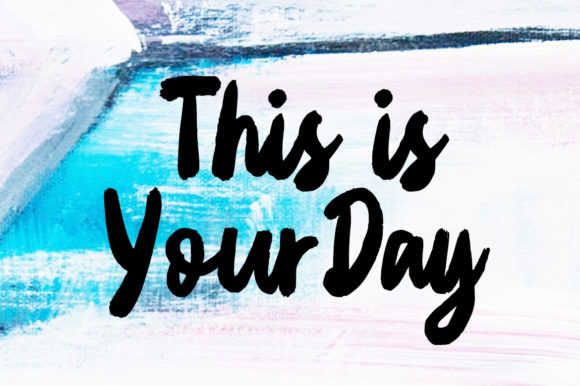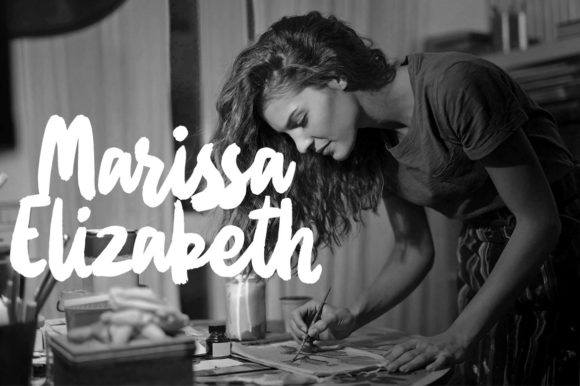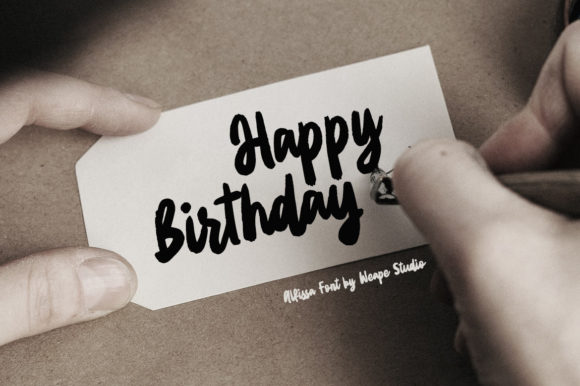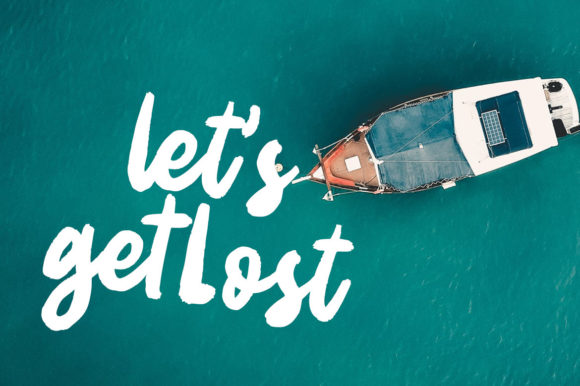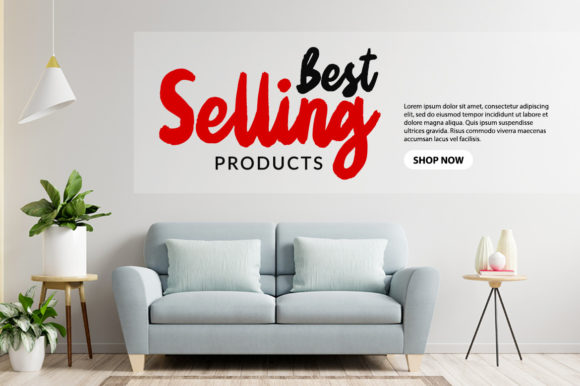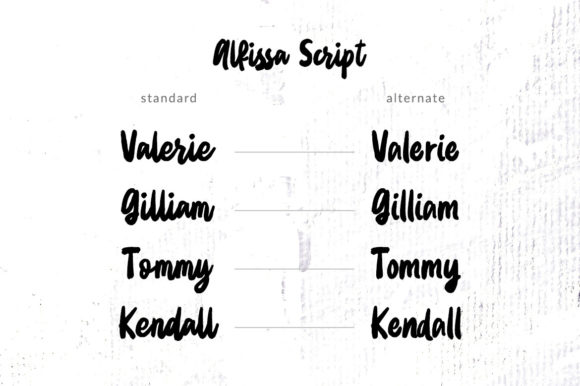
Introduction to Alfissa Font
Have you ever stared at a blank canvas, struggling to bring your creative vision to life? That’s where the right font can be a total game-changer. For designers and crafty enthusiasts alike, finding the perfect font can be a tedious task – until now.
Enter Alfissa Font, a bold and casual handwritten font that’s sure to breathe new life into your creative project. With its clean and quirky aesthetic, Alfissa Font is the perfect fit for logos, branding, social media, and DIY projects that require a high-quality, unique touch. This versatile font is also PUA encoded, making it easy to access all the glyphs and swashes you need to give your design a professional finish.
Key Features of Alfissa Font
- High-quality, elegant design perfect for creative projects, such as wedding invitations and luxury branding.
- Features a unique, handwritten style with intricate details, setting it apart from other fonts in its class.
Honest Review: Alfissa Font
As a designer, I’m always on the lookout for high-quality design resources to elevate my creative projects. Recently, I had the chance to try out the Alfissa Font, and I’m excited to share my thoughts with you.
What works well: ✨ The Alfissa Font is incredibly versatile and can be used in a wide range of creative projects, from graphic design to digital products. Its modern and sleek design makes it perfect for branding and logo work. The font also comes with a transparent background, which is a huge plus for designers who want to customize their designs.
Here are some of the key features I love about the Alfissa Font:
⚠️ One limitation I noticed is that the font may not be suitable for very small text sizes, as it can become blurry and difficult to read.
Getting the Most Out of Alfissa Font
To get the most out of Alfissa Font, use it in combination with other design elements to create a unique and visually appealing design. Experiment with different font sizes, colors, and styles to find the perfect look for your project.
The Alfissa Font is perfect for various design projects, including logos, brochures, business cards, and presentations. Its high quality and unique design make it an ideal choice for creative projects that require a professional touch.